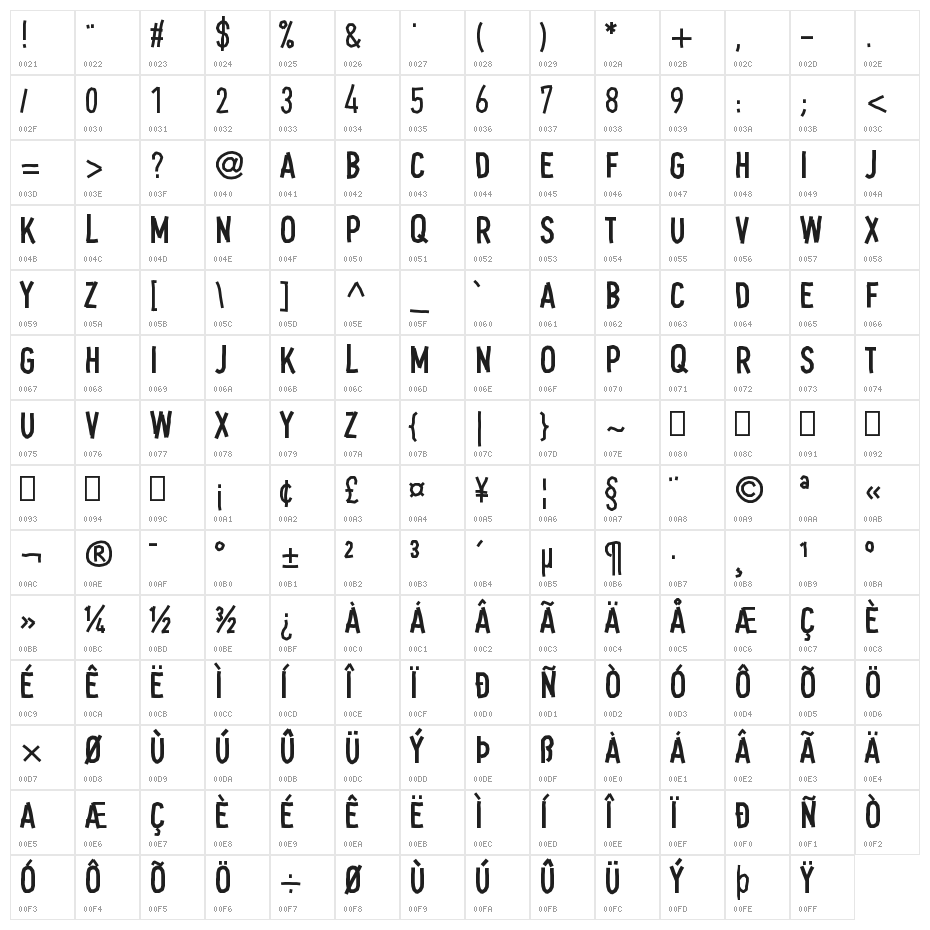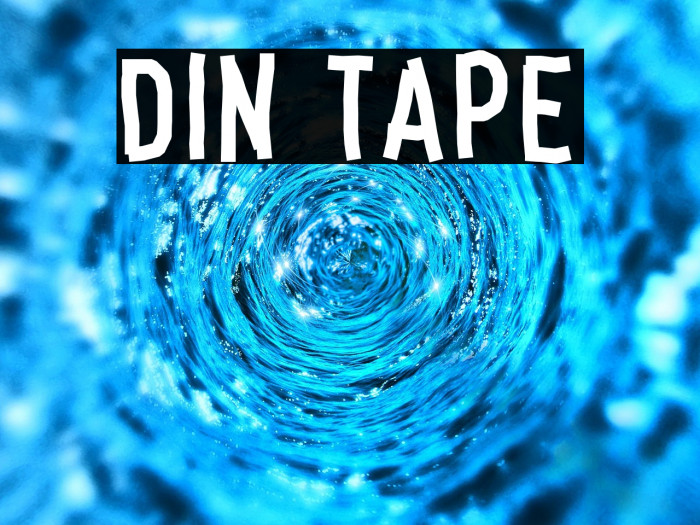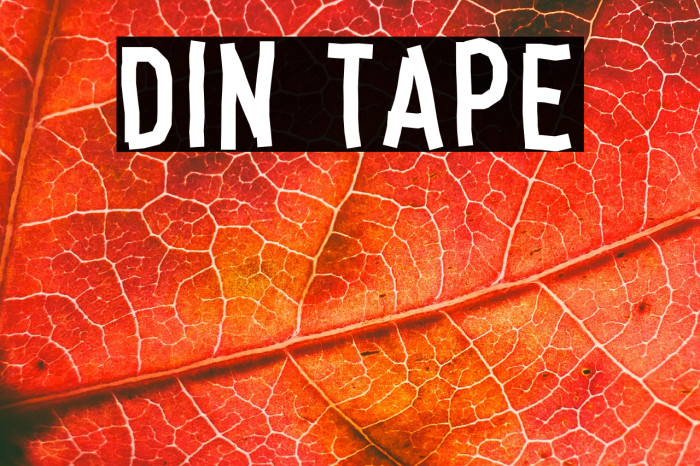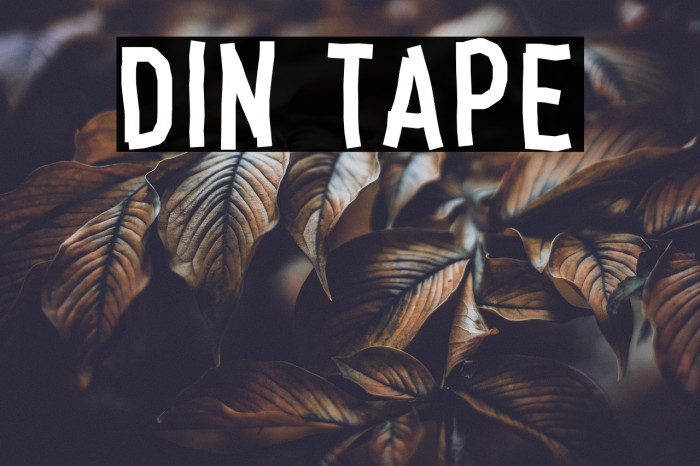
Din Tape Font
Din Tape Description
This font features a bold, hand-drawn style that mimics the appearance of letters cut from tape. The characters are uppercase and have a slightly irregular, playful look, adding a sense of dynamism and energy. The strokes are thick and consistent, with a medium contrast that gives the font a strong presence. The numbers and special characters maintain the same bold and quirky aesthetic, making it suitable for creative and informal designs. The overall style is decorative and modern, with a unique charm that stands out.
| Use Case | Headlines, Posters, Creative Branding |
| Proposed Projects | Ideal for posters, creative branding, children's books, and playful graphic design projects. |